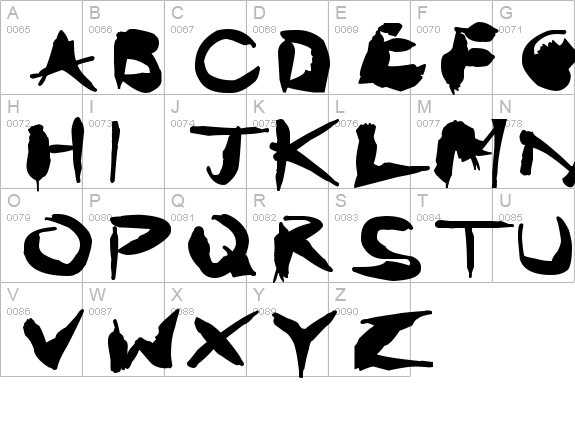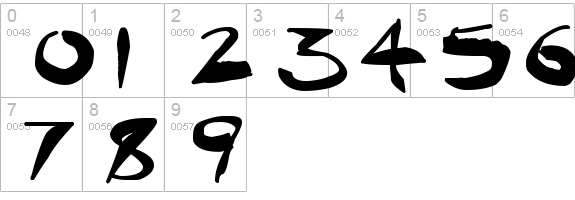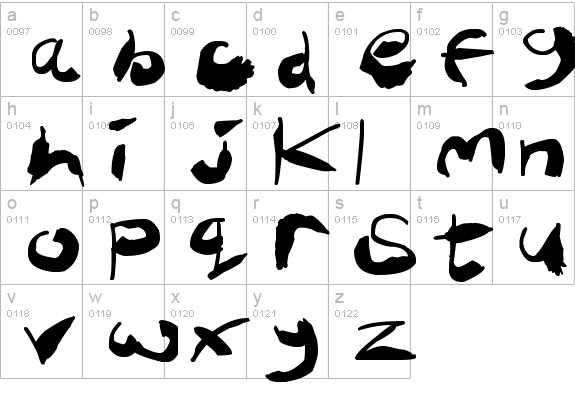
Crazy Ink Splats Font Details
Crazy Ink Splats is a free for personal use font in the Script > Brush category, designed by Darrell Flood. It has been downloaded 17 times and is available for Windows, Mac and Linux.
Crazy Ink Splats font is a whimsical and playful typeface that will add a touch of creativity to your designs. The unique splattered ink effect gives this font a dynamic and energetic look, perfect for projects that require a bold and artistic touch. Each letter is carefully crafted to resemble ink splats, creating a fun and unconventional style that is sure to make your designs stand out.